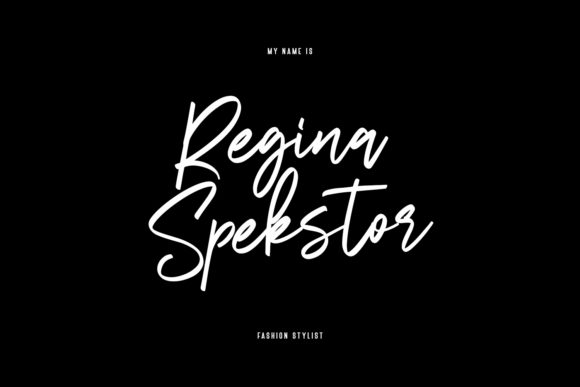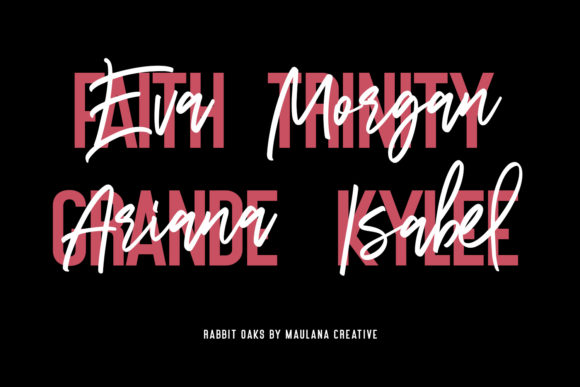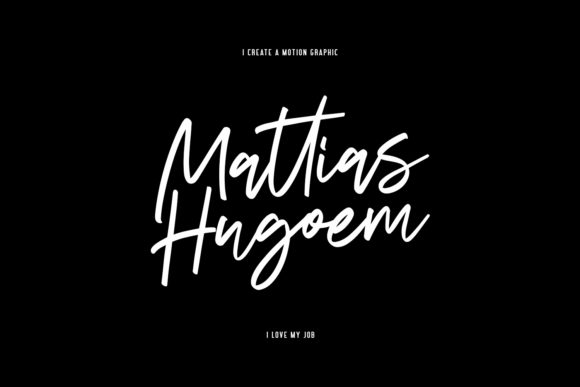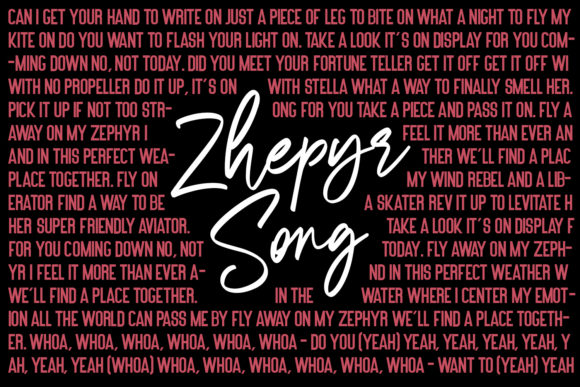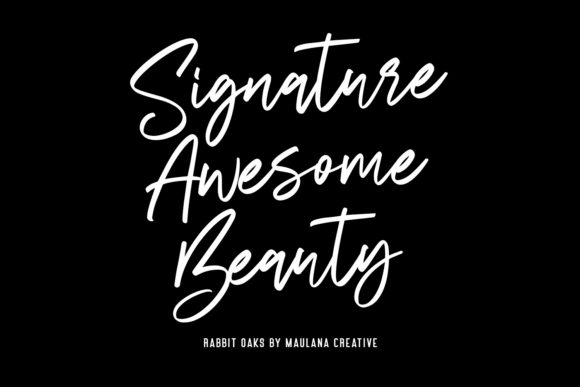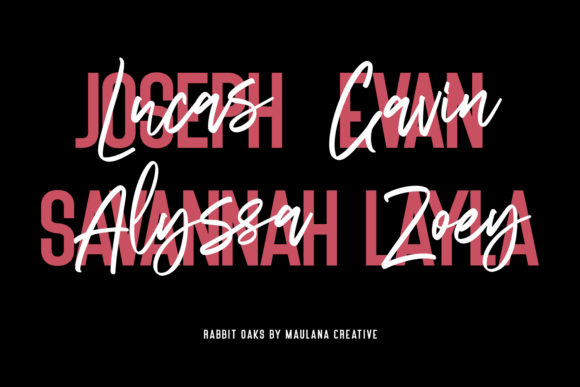
Introduction to Rabbit Oaks Font
Rabbit Oaks duo font is an authentic brush handwritten font.
It comes in two styles: sans serif and script This versatility means that this font can be used in a wide variety of applications from logos, to social media posts- the only limit is your imagination.
Key Features of Rabbit Oaks Font
Why Choose Rabbit Oaks Font?
Rabbit Oaks Font offers exceptional quality and versatility, making it a valuable addition to your design toolkit. Whether you’re creating for personal projects or commercial use, Rabbit Oaks Font delivers professional results.